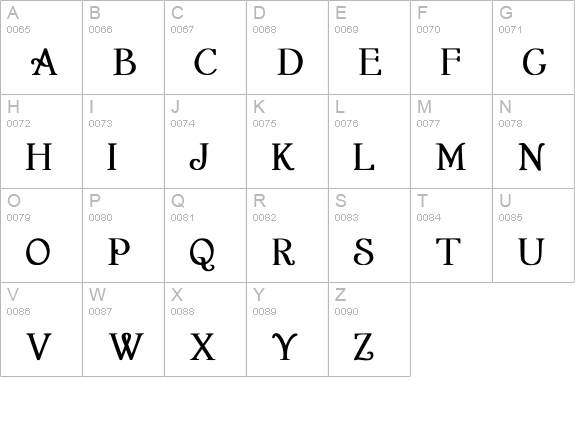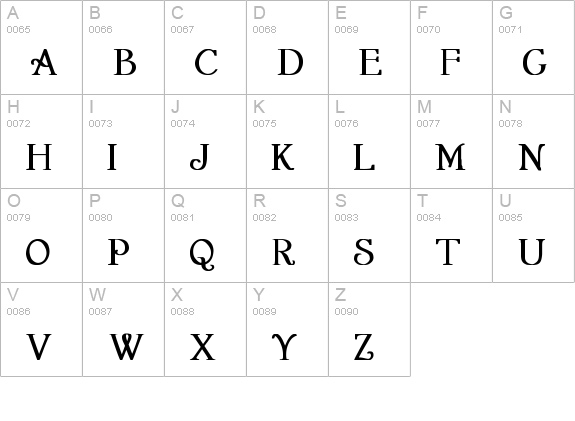
Garton Regular Bold is the standard, neutral variant in the Garton typeface family \xE2\x80\x94 well suited to general body text, paragraphs, and standard typographic work.
Garton Regular Bold is a versatile and stylish font that commands attention with its bold and impactful design. The strong and confident look of this font makes it perfect for headlines, titles, and branding projects that require a bold statement. With its clean lines and modern aesthetic, Garton Regular Bold exudes professionalism and sophistication. What sets Garton Regular Bold apart is that it is available for free download at FontsMarket.com, making it accessible to all designers and creatives looking to elevate their projects with a bold and captivating typeface. Whether you're designing a poster, logo, or website, Garton Regular Bold is sure to make a bold impression and leave a lasting impact on your audience. Download this striking font today and take your designs to the next level!